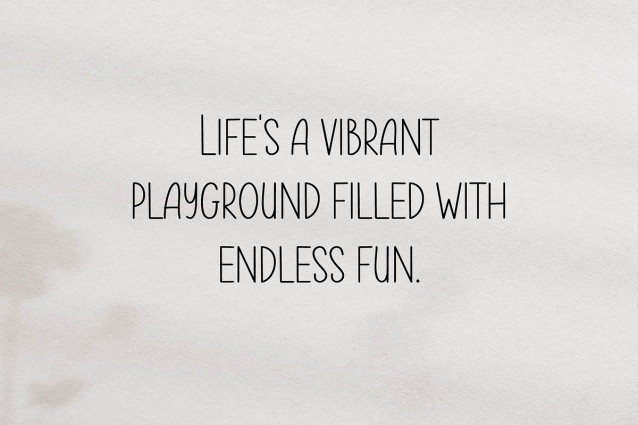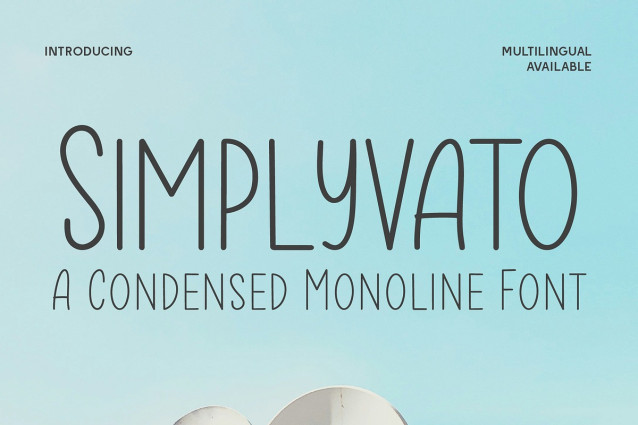
CF Simplyvato Font
CF Simplyvato Font is a friendly and approachable condensed monoline font that blends minimalism with personality. Its tall, narrow letterforms and even stroke weight give it a clean, modern aesthetic, while its slightly quirky curves add a handmade charm. Ideal for display settings, Simplyvato brings warmth and clarity to headlines, branding, packaging, greeting cards, and editorial layouts.
With its compact design, Simplyvato is perfect for projects where space is limited but character is essential. The consistent line thickness ensures excellent legibility at larger sizes, while its subtle playfulness makes it stand out in casual or creative contexts.